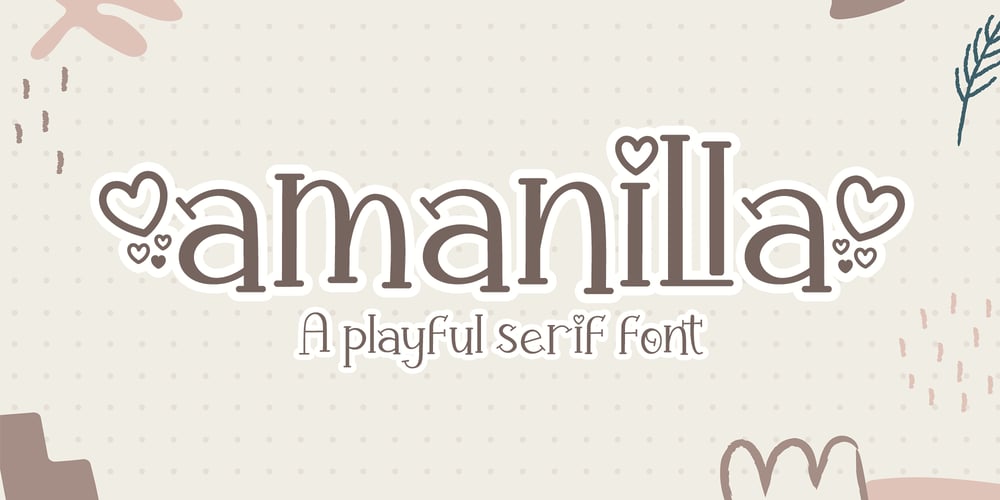
Amanilla Font Family was designed by Agung Eko Nugroho and published by AEN Creative Studio. Amanilla contains 2 styles and family package options. Amanilla is a romantic and sweet serif display font. No matter the topic, this font will be an incredible asset to your fonts’ library, as it has the potential to elevate any creation. This font is PUA encoded, which means you can access all of the glyphs and swashes with ease!